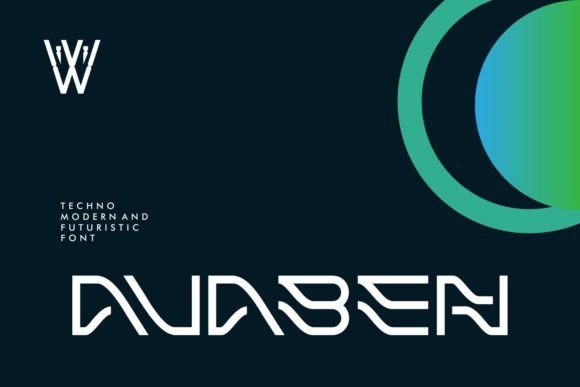
The Ultimate Guide to Avaben Font: Elevate Your Designs with Minimalist Luxury
As a designer, I’ve had my fair share of frustrating moments while searching for the perfect font. I recall working on a project for a high-end client, requiring a typeface that exuded sophistication and elegance. After hours of scouring through font libraries, I stumbled upon Avaben – a game-changer in the world of typography. In this article, I’ll share my experience with Avaben, its features, and how to make the most of this stunning font.
A Personal Encounter with Avaben
During a particularly demanding project, I needed a font that would capture the essence of luxury and technology. A client requested a design that would appeal to a young, tech-savvy audience while maintaining an air of sophistication. That’s when I discovered Avaben – a minimalist yet luxurious and classy font that perfectly embodied the futuristic style with a Y2K feel.
What I Love About Avaben ✨
- ✅ Versatility: Avaben is suitable for a wide range of design applications, from branding and logos to headlines, brochures, and editorial designs.
- ✅ Elegant and Sophisticated: The font’s futuristic style with a Y2K feel adds a touch of luxury to any design.
- ✅ Easy to Read: Avaben’s clean lines and minimalist approach ensure excellent legibility, even at smaller font sizes.
- ⚠️ Limited use in body text: While Avaben excels in headlines and titles, it may not be the best choice for lengthy body text due to its minimalist nature.
- ⚠️ Requires attention to spacing: To maximize the font’s impact, careful attention must be paid to letter spacing and kerning.
- Explore OpenType features, glyphs, and stylistic alternates to unlock Avaben’s full potential.
Avaben offers a range of OpenType features, glyphs, and stylistic alternates that can elevate your designs. To access these features:
Experiment with different combinations of features to create unique and captivating designs.
The Story Behind Avaben
Avaben was created with the goal of providing a versatile, high-end font that meets the visual demands of modern design. Inspired by the sleek lines and minimalist aesthetic of futuristic design, Avaben’s creator aimed to craft a typeface that embodies sophistication and luxury. The result is a font that seamlessly blends technology and elegance.
Q: What is the primary use of Avaben font?
A: Avaben is designed for use in headlines, titles, logos, and branding projects, where a touch of luxury and sophistication is desired.
Q: Can I use Avaben for body text?
A: While Avaben can be used for body text, it may not be the best choice due to its minimalist nature. It’s recommended to use it for headlines and titles.
Q: Is Avaben suitable for digital design?
A: Yes, Avaben is designed to work well in digital environments, including websites, social media, and digital marketing materials.